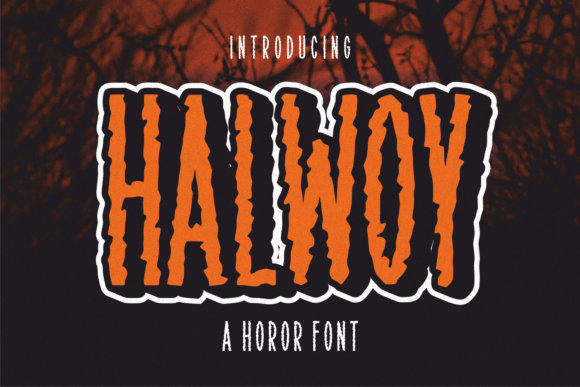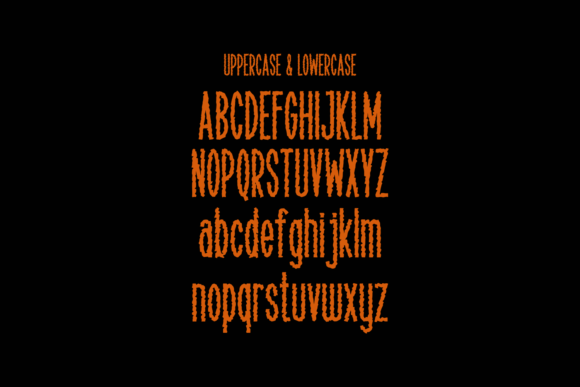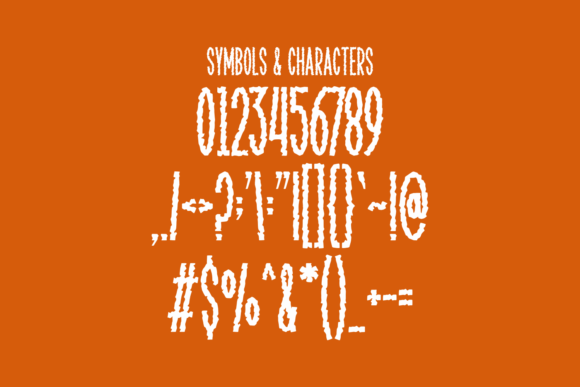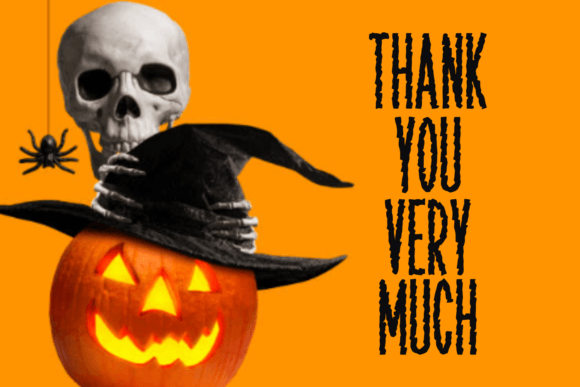
Introducing Halwoy: The Spine-Chilling Display Font for Horror Enthusiasts
Are you tired of using the same old fonts for your projects? Do you want to add a touch of eeriness and intrigue to your designs? Look no further than Halwoy, a display horror font that is sure to send shivers down your spine. With its ominous and twisted letterforms, Halwoy is the perfect addition to any project that requires a spine-chilling edge.
The Inspiration Behind Halwoy
Halwoy is a font that is deeply rooted in the horror genre. Its design is inspired by the creepy and abandoned places that are often associated with Halloween. The font’s creator aimed to capture the essence of fear and unease, crafting a typography that would evoke a sense of dread and foreboding. The result is a font that is both hauntingly unique and terrifyingly effective.
Key Features of Halwoy
- Ominous and Twisted Letterforms: Halwoy’s letterforms are carefully crafted to create an eerie and unsettling atmosphere. Each letter is twisted and distorted, giving the font a sense of unease and discomfort.
- Perfect for Horror-Themed Projects: Whether you’re working on a Halloween invitation, a spooky sign, or a horror-themed video, Halwoy is the perfect font to add a touch of fear and intrigue to your project.
- High-Quality Design: Halwoy is designed with high-quality craftsmanship in mind. The font is clear and legible, making it perfect for use in a variety of projects, from digital designs to print materials.
- Easily Customizable: Halwoy is designed to be easily customizable, allowing you to adjust the font to suit your project’s needs. Whether you want to change the color, size, or style, Halwoy is easy to work with.
Uses for Halwoy
Halwoy is a versatile font that can be used in a variety of projects, including:
- Halloween Invitations: Add a touch of spookiness to your Halloween invitations with Halwoy. The font’s eerie and unsettling atmosphere is perfect for creating a sense of excitement and anticipation.
- Spooky Signage: Whether you’re creating a sign for a haunted house, a creepy abandoned building, or a spooky event, Halwoy is the perfect font to add a touch of fear and intrigue.
- Horror-Themed Videos: Halwoy is perfect for use in horror-themed videos, including movie titles, intro sequences, and more.
- Typography Projects: Halwoy is a great font to use in typography projects, such as quote posters, inspirational quotes, and more.
Tips for Using Halwoy
Here are a few tips for using Halwoy in your projects:
- Use it Sparingly: Halwoy is a bold and attention-grabbing font, so use it sparingly to avoid overwhelming your design.
- Pair it with Other Fonts: Halwoy pairs well with other fonts, such as sans-serif fonts or script fonts. Experiment with different pairings to find the one that works best for your project.
- Experiment with Colors: Halwoy looks great in a variety of colors, from bold and bright to dark and muted. Experiment with different colors to find the one that works best for your project.
Halwoy is a unique and terrifyingly effective display horror font that is perfect for adding a touch of fear and intrigue to your projects. With its ominous and twisted letterforms, Halwoy is sure to send shivers down your spine. Whether you’re working on a Halloween invitation, a spooky sign, or a horror-themed video, Halwoy is the perfect font to add a spine-chilling edge to your design. So why wait? Embrace the darkness and give Halwoy a try today!